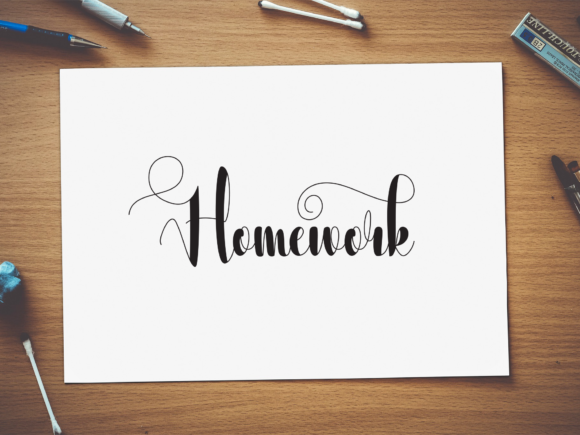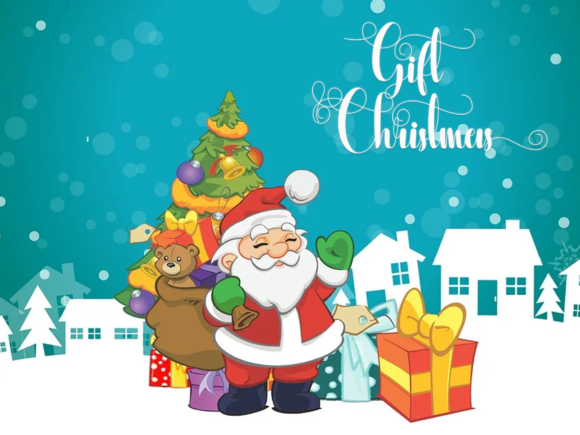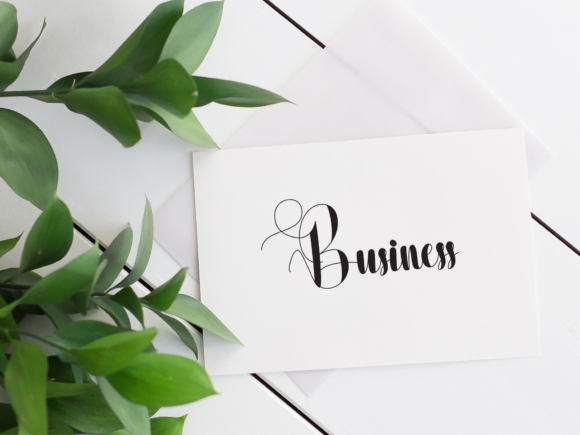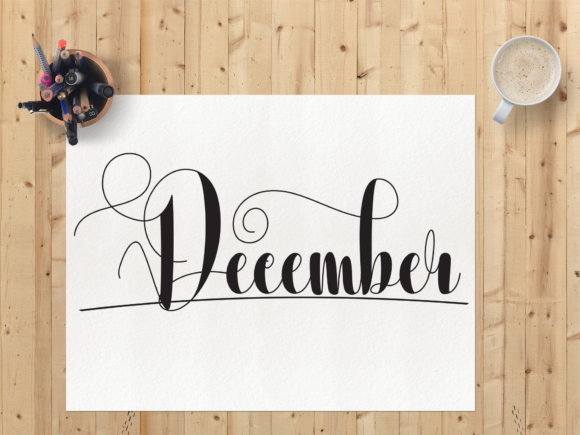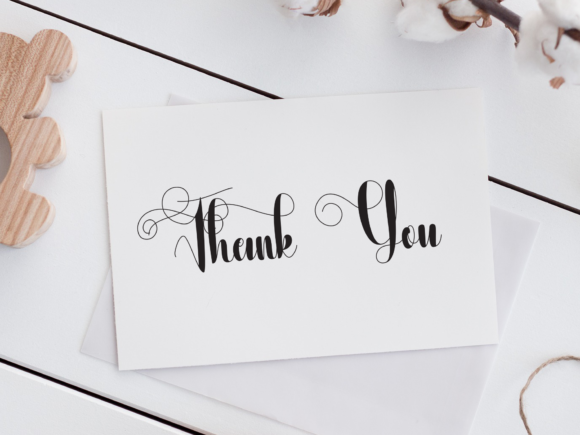
About Merry Christmas Font
Merry Christmas is a beautiful font for the Holidays, thoroughly made to produce the font as expected. IT can be used for writing a wide variety of products according to their individual needs.